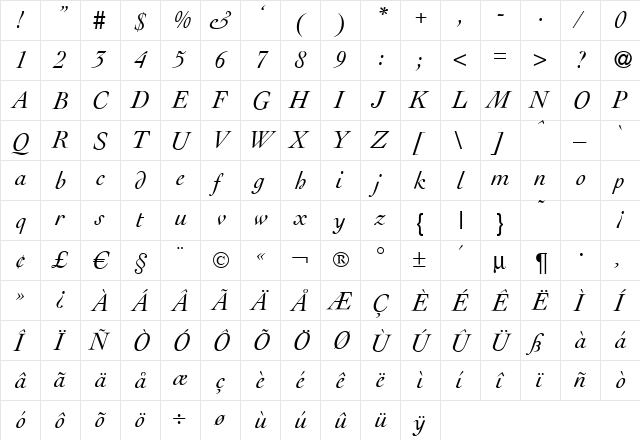
Lega Italic
Design Context for Lega Typeface
Lega is a composed and adaptable typeface that performs quietly and consistently across a wide range of design contexts. The dynamic lean of this cut emphasises speed and emphasis in any layout.
Pro Tip: Use Lega for emphasis, pull quotes, and subheadings where its slanted energy can add rhythm to the layout.